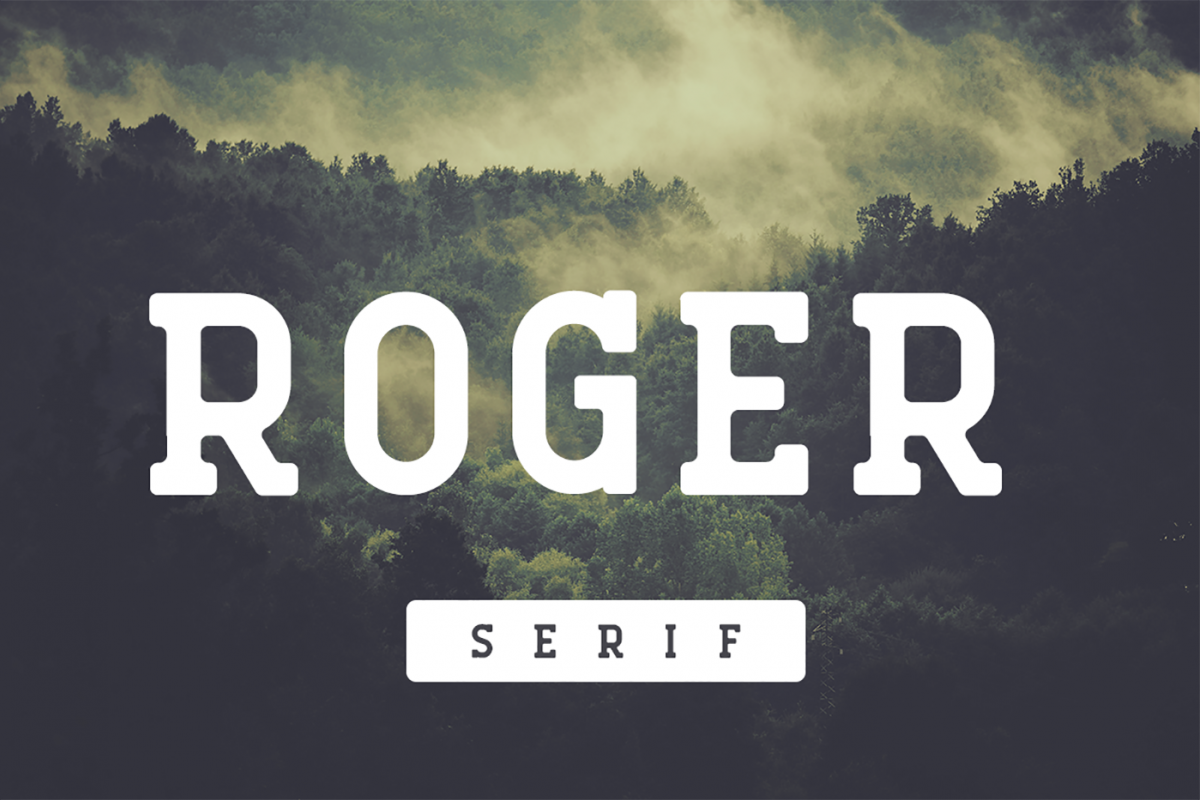
Roger Serif
Roger Serif is a clean and simple vintage serif font, with smooth edges to simulate vintage design. Perfect for many different projects: quotes, blog header, poster, wedding, branding, logo, fashion, apparel, letter, invitation, stationery, etc.
Weight: Bold and Light